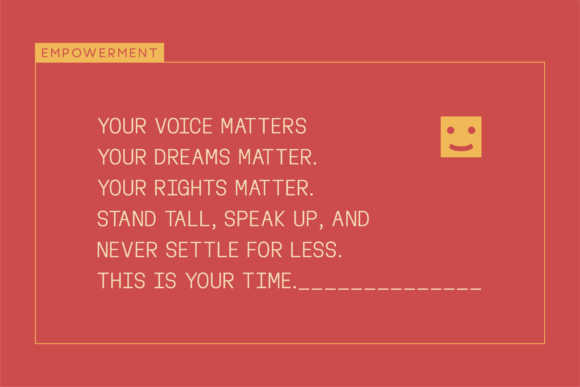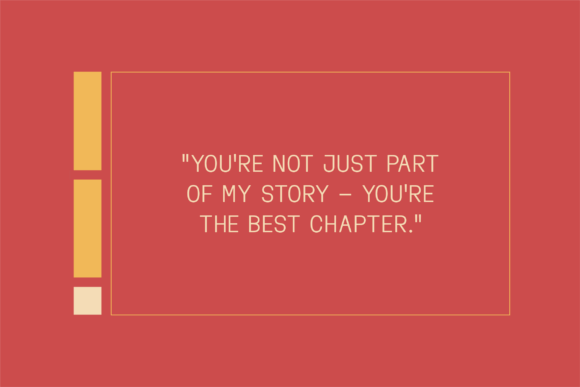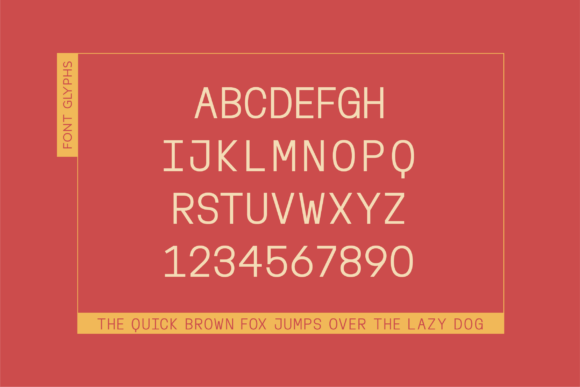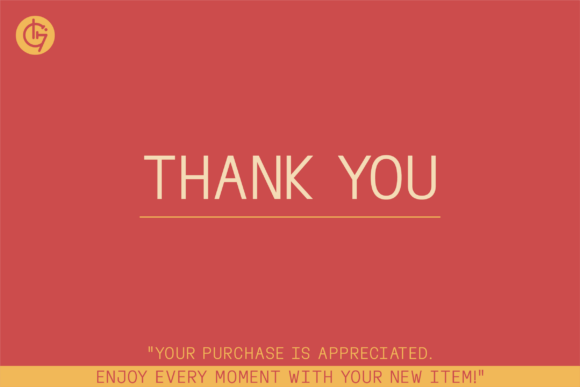
Time to Make a Statement: Introducing the Behaved Font
Remember the moment when a single font choice made all the difference in your design? For many creatives, that ‘aha’ moment is a defining experience in their work. It’s a moment when the perfect font elevates a project from good to great. That’s exactly what we’re excited to introduce you to – the Behaved Font.
Behaved is a modern sans serif typeface designed for the modern designer. Its clean lines and minimalist aesthetic exude strength and authority, making it perfect for projects that require a sense of professionalism and impact. With its bold, all-caps design, Behaved is ideal for branding, logos, packaging, and digital design. Whether you’re working on a large-scale project or a smaller text block, Behaved is the perfect choice to make a statement.
Behaved Font Key Features
- Unique Characteristics: Behaved Font features a distinctive, modern aesthetic with rounded edges and subtle flair, making it suitable for a wide range of applications, from body text to display headlines.
Behaved Font Review
Overall, I was pleasantly surprised by the Behaved Font. Here are some things that really stood out to me:
- ✨ Clean and minimalist aesthetic: The font’s simplicity makes it perfect for modern designs, and it’s a great choice for anyone looking for a clean and uncluttered look.
- ✨ Excellent legibility: The font is highly legible, even at smaller sizes, making it a great choice for body text or headlines.
- ✨ Versatile: The font comes in a range of weights and styles, making it easy to find the perfect fit for your design.
- ⚠️ Limited character set: The font’s character set is not as extensive as some other fonts on the market, which may be a problem for designers working with languages that require a wider range of characters.
- ⚠️ Not ideal for display text: While the font is great for body text, it’s not the best choice for display text or headings, where a bolder, more dramatic font is often preferred.
Overall, I would recommend the Behaved Font for designers looking for a clean, minimalist font for body text or small-scale designs. However, it may not be the best choice for more complex or dramatic designs.
Behaved Font is ideal for:
- Creativity-focused projects, such as art and design.
- Titles and headings for presentations and documents.
- Branding and identity projects.
Alternatives to “Behaved Font” for Designers
Open Sans is a clean and modern sans-serif font. It is ideal for digital products, websites, and apps where readability is crucial. Open Sans is a more neutral and minimalist font compared to Behaved Font, which has a slightly more playful and friendly tone.
Lato is a sans-serif font with a strong, modern look. It is perfect for branding and corporate materials where a professional and sophisticated feel is required. Lato has a more dramatic and geometric feel compared to Behaved Font, which is more rounded and friendly.
Montserrat is a sans-serif font inspired by urban typography. It is ideal for digital products, websites, and apps where a modern and edgy feel is desired. Montserrat has a more industrial and gritty feel compared to Behaved Font, which is more approachable and friendly.